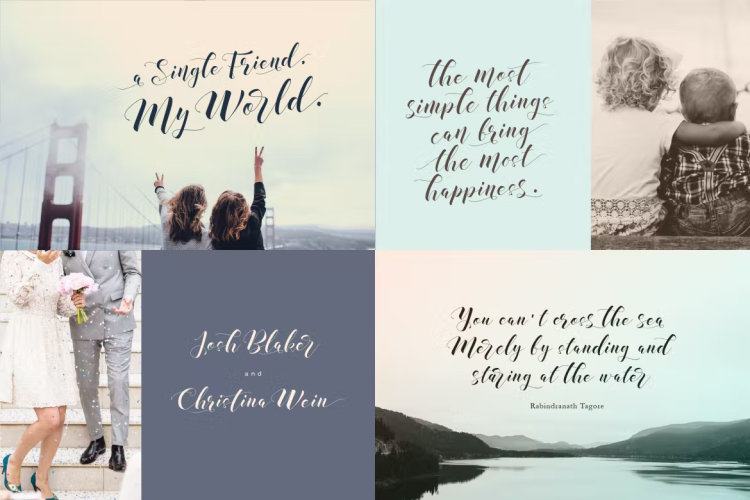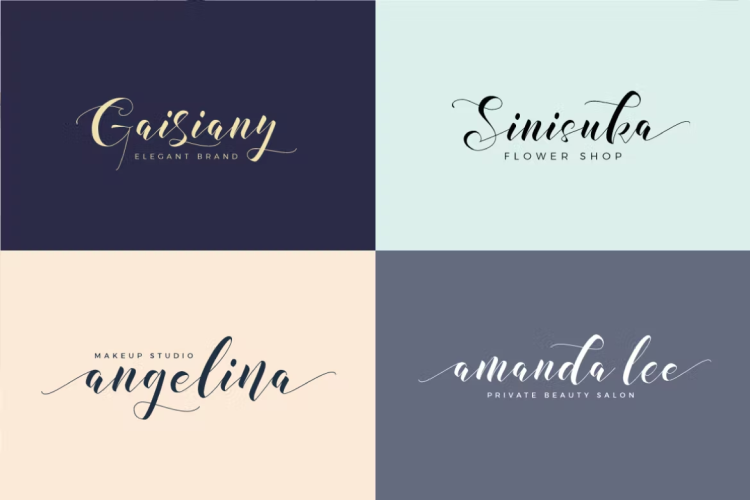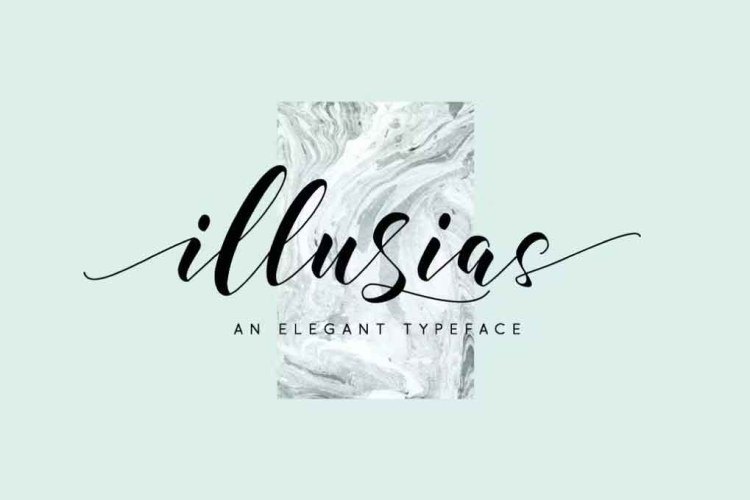
illusias Font
illusias is an elegant handwritten typeface. illusias typeface is suitable for any design needs, modern invitation design, branding, blog design, modern advertising desi…
illusias is an elegant handwritten typeface.
illusias typeface is suitable for any design needs, modern invitation design, branding, blog design, modern advertising design, invitation, Art Quote, Home decor, Book/Cover Title, Invitation, special events, birthday, custom mug, pillow, t-shirts, any brush lettering needs and more.
Where illusias Font works best
A short phrase in illusias Font carries warmth that a typeset sans cannot fake; keep the rest of the card plain.
Chalkboard-style headings in illusias Font make a menu feel hand-made. Keep the dish descriptions in a simple face so prices stay readable.
One line of illusias Font over a photo is enough; the script carries the tone and the caption does the work.
It sits in the Script And Handwritten group and reads as branding, brush, elegant, handwritten. That makes it a candidate wherever those qualities help: headings, packaging, social graphics and brand work. Set it at the size you plan to use before deciding.